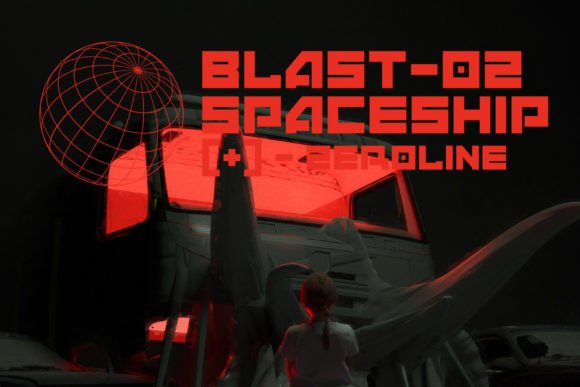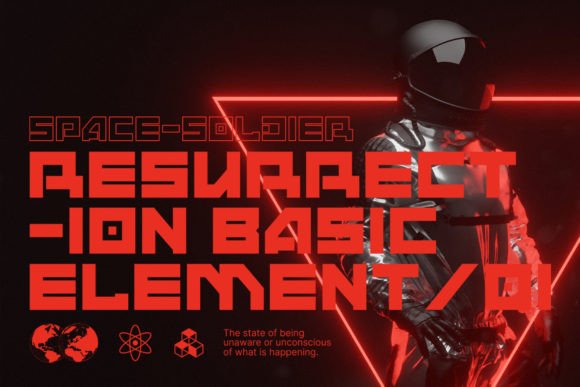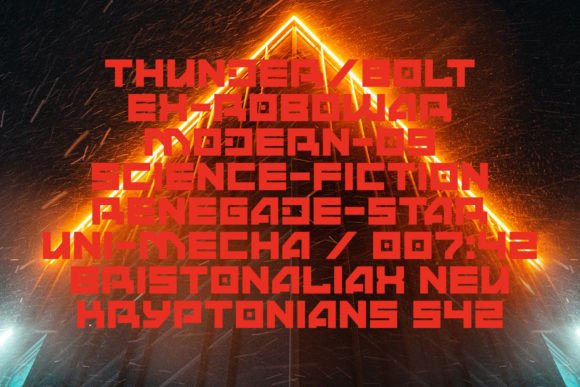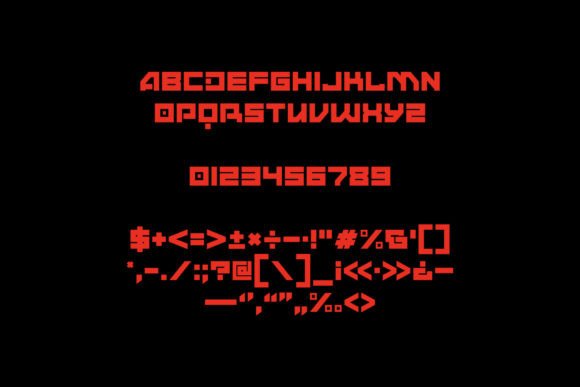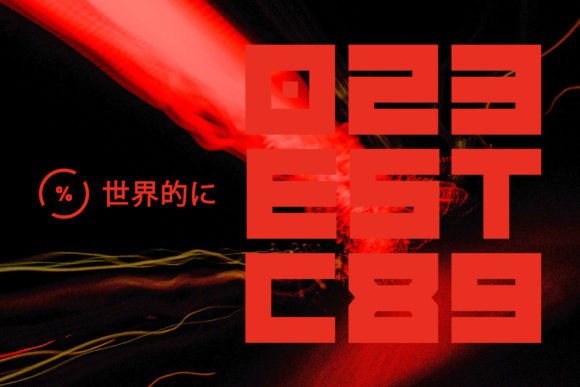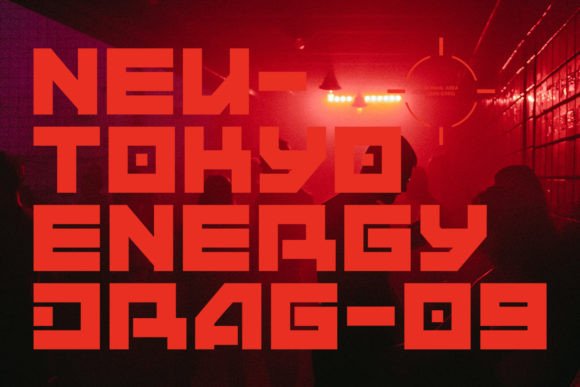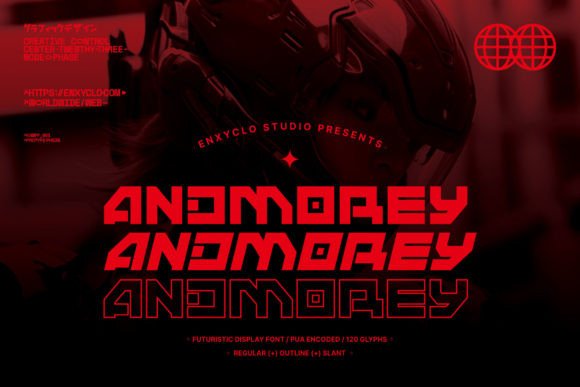
Introducing Andmorey Font: Elevate Your Designs with a Futuristic Touch
In the world of design, fonts play a crucial role in conveying the message and aesthetic of a project. If you’re looking for a typeface that can add a powerful and inspiring touch to your work, look no further than Andmorey Font. This futuristic display font is designed to make your project stand out from the rest, and in this article, we’ll explore its features, uses, and benefits.
What is Andmorey Font?
Andmorey is a futuristic display font that boasts a unique and captivating design. Its sleek lines, geometric shapes, and carefully crafted letterforms make it perfect for projects that require a modern and edgy feel. Whether you’re working on a headline, billboard, magazine, website, or any other visual project, Andmorey Font is sure to make a lasting impression.
Key Features of Andmorey Font
- Futuristic Design: Andmorey’s design is inspired by the latest trends in technology and space exploration, making it perfect for projects that require a forward-thinking approach.
- High Versatility: This font is suitable for a wide range of projects, from headlines and billboards to magazines, websites, titles, posters, branding, thumbnails, t-shirt design, streetwear design, and creative logos.
- Easy to Read: Despite its futuristic design, Andmorey Font is easy to read, even at small sizes, making it perfect for use in a variety of contexts.
- Unique Letterforms: Each letterform in Andmorey Font has been carefully crafted to create a unique and memorable visual identity.
Uses of Andmorey Font
Andmorey Font is an incredibly versatile typeface that can be used in a wide range of projects, including:
- Headlines and Titles: Use Andmorey Font to create bold and attention-grabbing headlines that set the tone for your project.
- Billboards and Posters: Make your billboards and posters stand out from the crowd with Andmorey’s futuristic design.
- Magazines and Websites: Add a touch of modernity to your magazine or website with Andmorey Font, perfect for headings, subheadings, and titles.
- Branding and Logos: Create a unique and memorable brand identity with Andmorey Font, perfect for logos, business cards, and letterheads.
- T-Shirt and Streetwear Design: Use Andmorey Font to create eye-catching and stylish designs for t-shirts, hoodies, and other streetwear items.
Benefits of Using Andmorey Font
By using Andmorey Font in your projects, you can:
- Elevate Your Design: Add a touch of modernity and sophistication to your project with Andmorey’s futuristic design.
- Stand Out from the Crowd: Make your project stand out from the rest with Andmorey’s unique and captivating design.
- Convey a Powerful Message: Use Andmorey Font to convey a powerful and inspiring message to your audience.
- Enhance Your Brand Identity: Create a unique and memorable brand identity with Andmorey Font, perfect for businesses and individuals looking to establish a strong visual presence.
In conclusion, Andmorey Font is a powerful and inspiring typeface that can elevate your designs to the next level. Its futuristic design, high versatility, and unique letterforms make it perfect for a wide range of projects, from headlines and billboards to magazines, websites, and branding. Whether you’re a designer, craftsperson, or business owner, Andmorey Font is sure to make your project stand out from the rest. So why wait? Download Andmorey Font today and experience the power of futuristic typography for yourself.